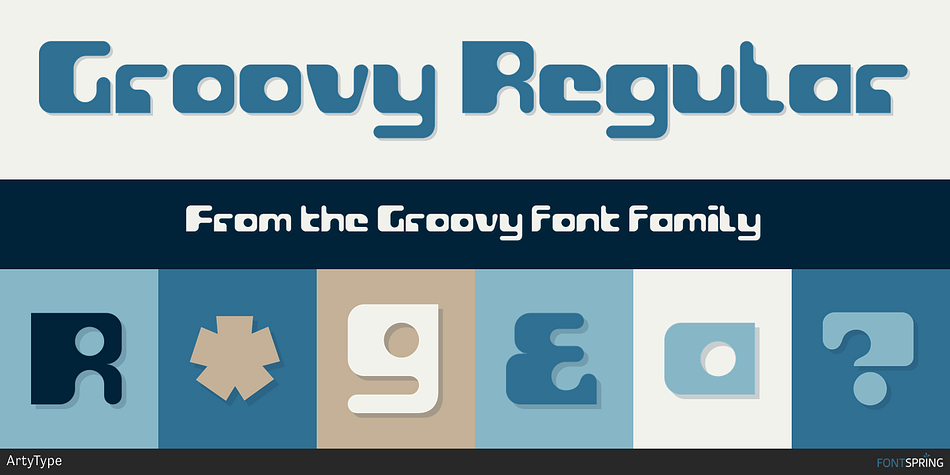
Groovy Regular
Groovy is a retro font family. This typeface has two styles and was published by ArtyType.
Groovy started out as a prospective variant in the Flashback series but very quickly established its own distinct appearance, especially with the lower case letters blending so well into the format.
Groovy started out as a prospective variant in the Flashback series but very quickly established its own distinct appearance, especially with the lower case letters blending so well into the format. There wasn’t any preconceived idea to design a retro looking font in principle, it simply evolved that way, but I do think it has several distinct characteristics reminiscent of style genres from the 70’s. It’s probably quite subliminal and like me, you may find yourself thinking, what does that remind me of?
The double-entendre’d title is quite apt too, not merely for reasons of its outwardly retro appearance but also because of the considered, rounded elements forming the negative spaces throughout. The font also has something of a chameleon-like personality, being both adaptable and capable of having a trendy / fun appearance, or alternatively something solid and stylish, depending on the use, as demonstrated in the banner examples here.